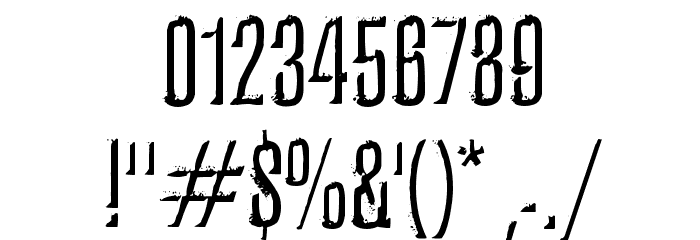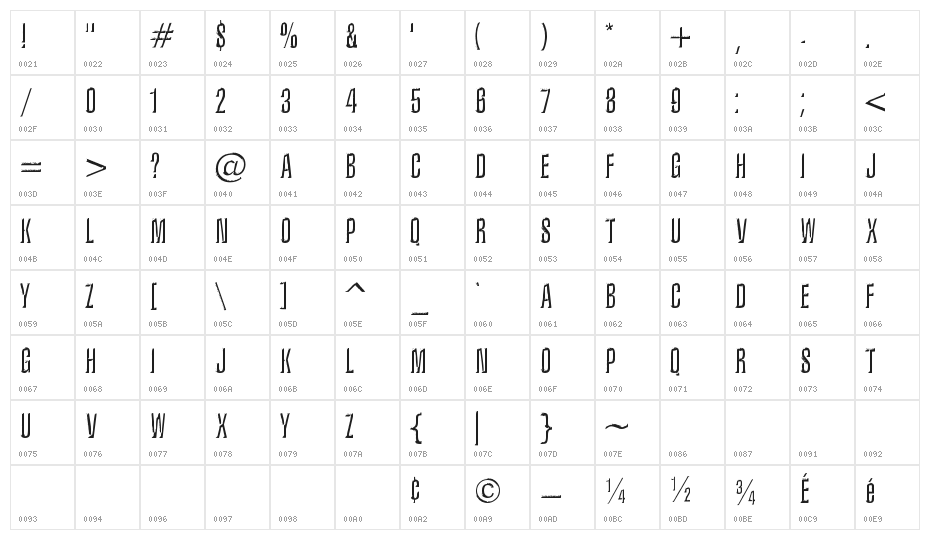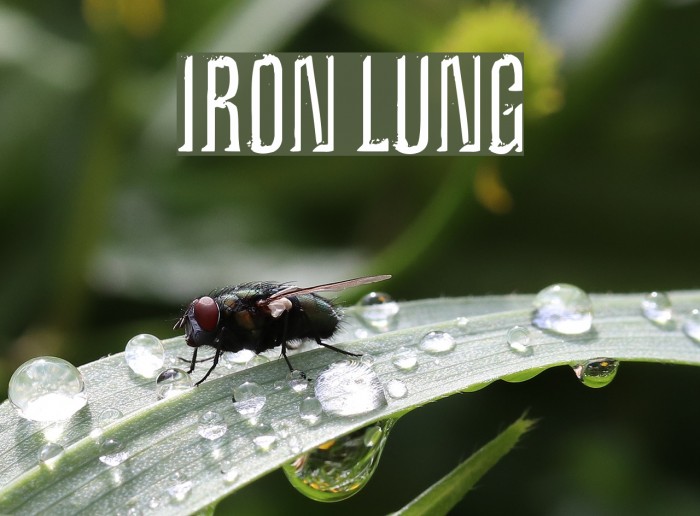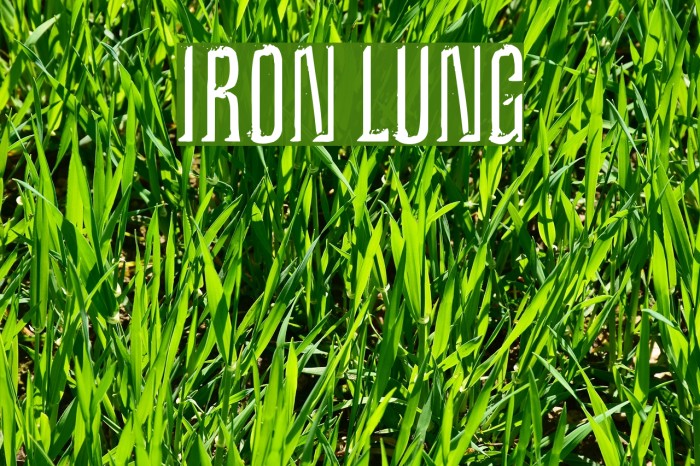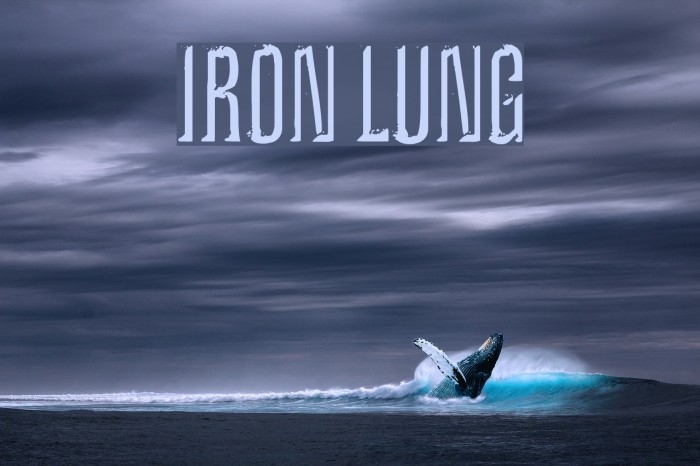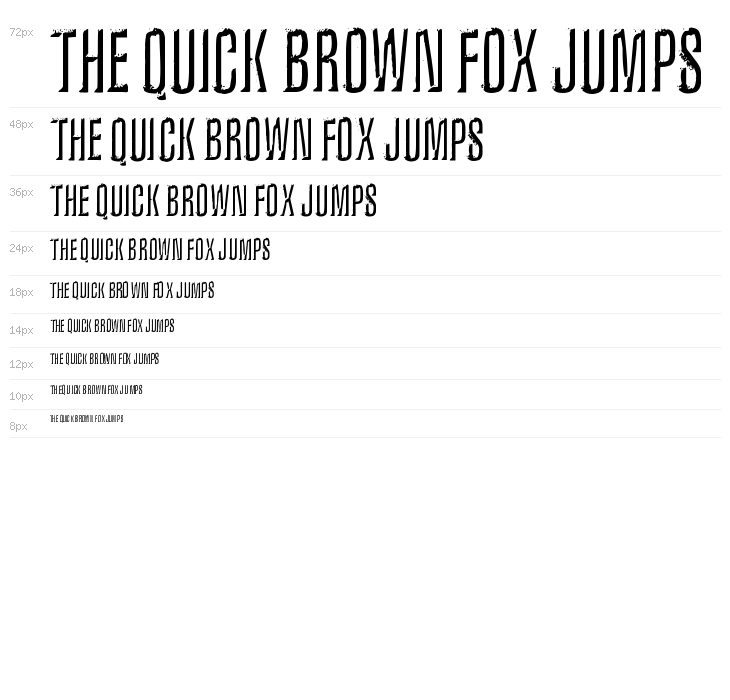
Iron Lung Font
Iron Lung Description
This font features a rugged, distressed appearance, giving it a vintage and industrial feel. The characters are tall and narrow, with a slightly uneven texture that suggests wear and tear, reminiscent of old machinery or weathered signage. The uppercase letters are bold and commanding, while the numbers and special characters maintain the same distressed style, ensuring consistency across all elements. This font's unique texture and style make it stand out, adding a touch of character and history to any design.
| Use Case | Logos, Posters, Branding |
| Proposed Projects | Ideal for projects requiring a vintage or industrial aesthetic, such as posters, logos, branding for retro-themed businesses, or album covers. |